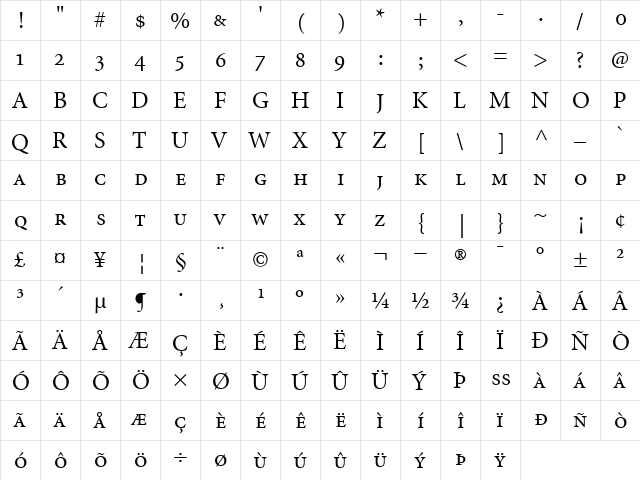
MinionSmallCaps&OldstyleFigures Roman
Design Context for MinionSmallCaps&OldstyleFigures Typeface
MinionSmallCaps&OldstyleFigures brings classic typographic sensibility to the table — its serifs and measured letterforms reflect centuries of print heritage.
Pro Tip: Set MinionSmallCaps&OldstyleFigures with slightly loose tracking in headlines to let each letterform's detail read clearly at display sizes.